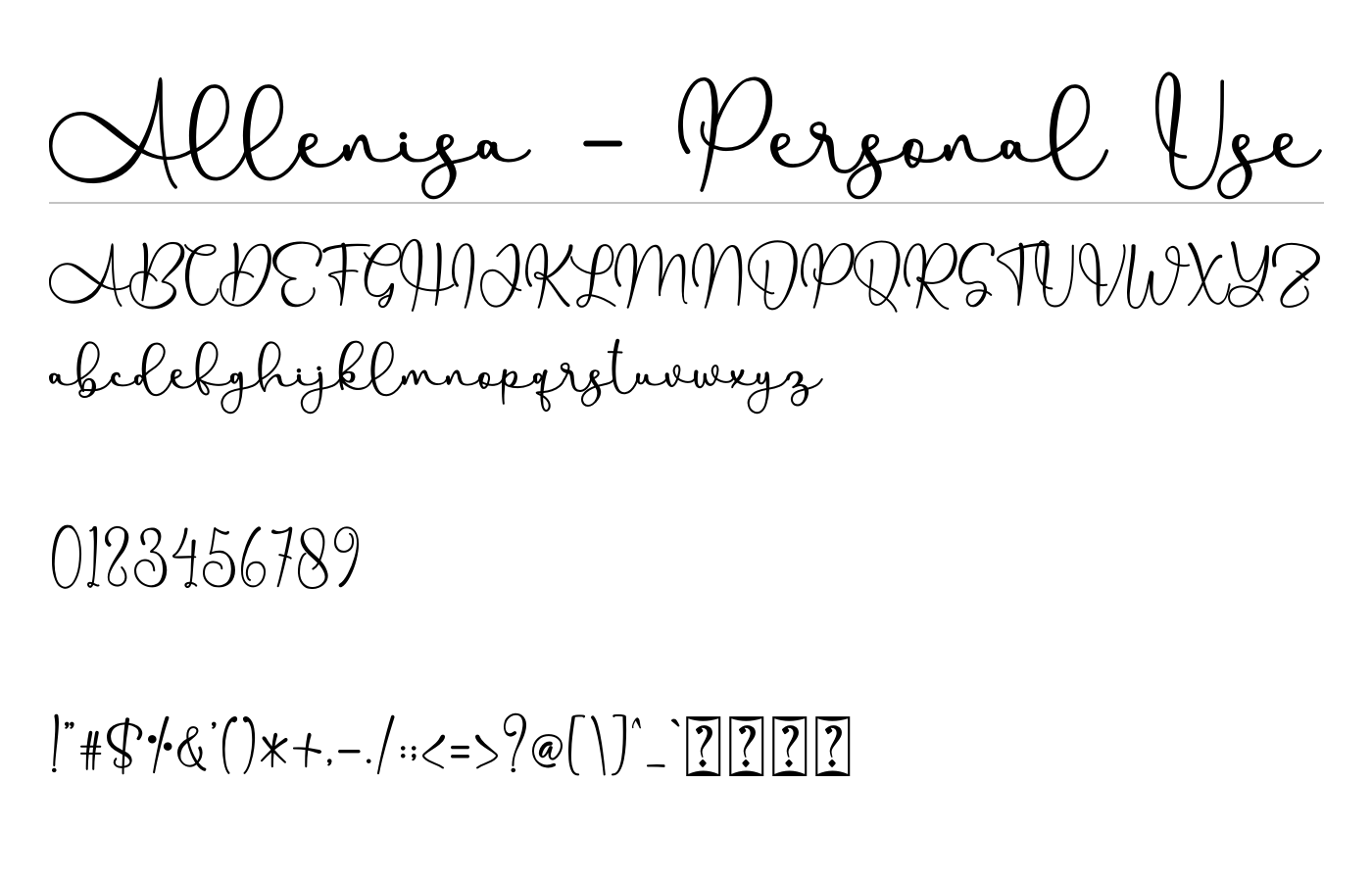
Allenisa is a delicate, handwritten script font with elegant looping strokes and a fine, light weight that evokes a personal, artistic touch. Its tall, airy letterforms and smooth, flowing curves make it ideal for creative projects like invitations, branding, and stationery where a graceful, intimate feel is desired. This font works best in uses that highlight its charm and readability in larger sizes, such as logos and headlines.
Allenisa - Personal Use Font
About Allenisa - Personal Use Font
| Font family | Allenisa - Personal Use Font |